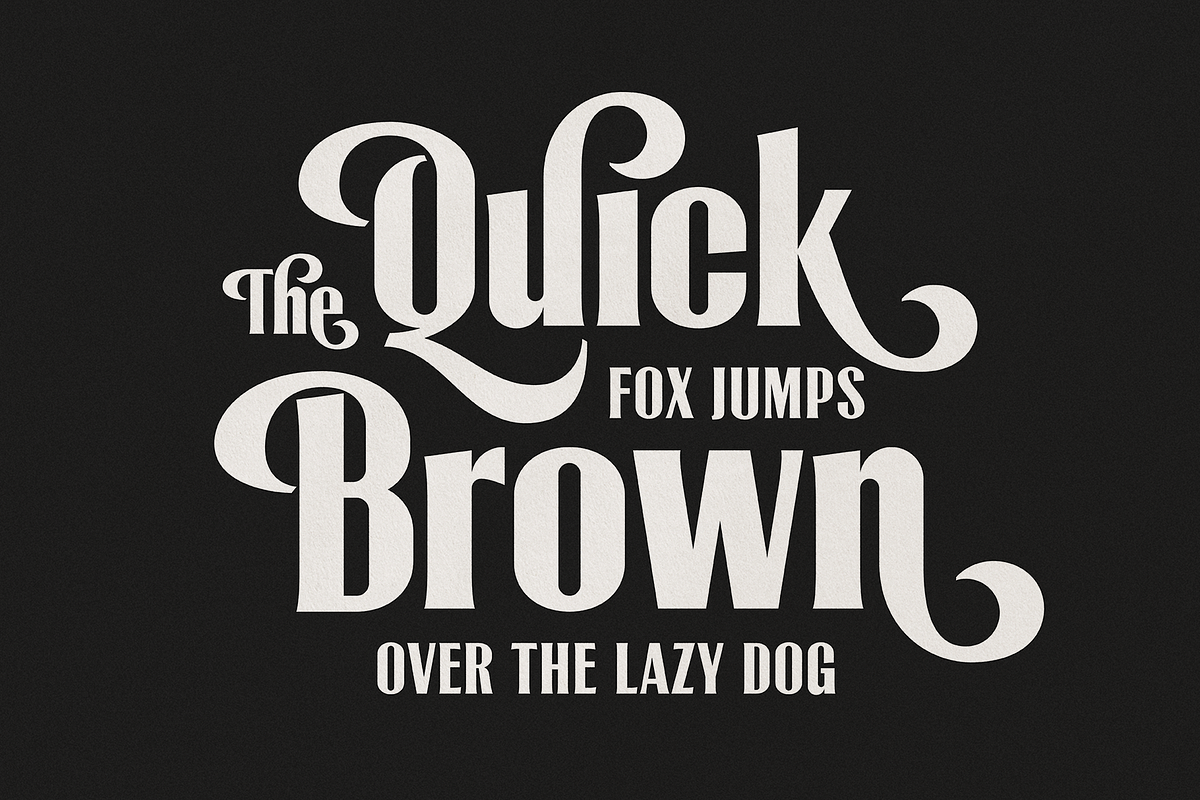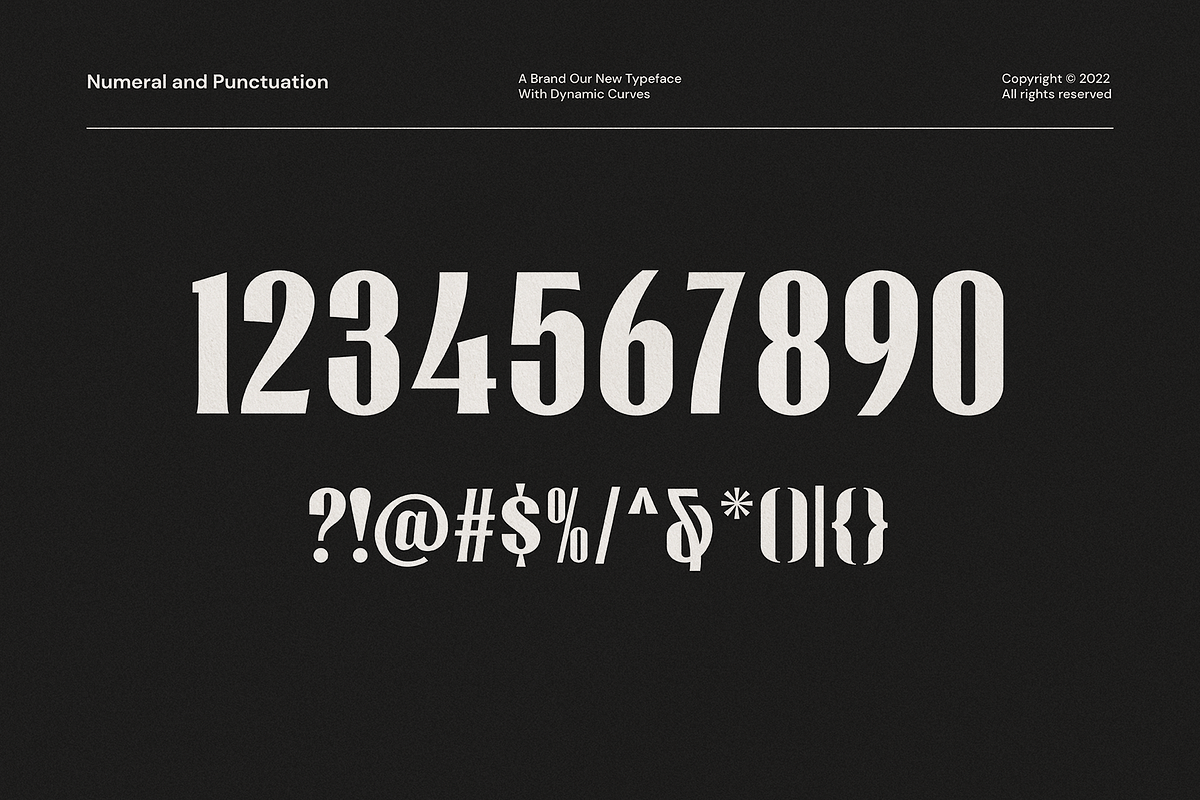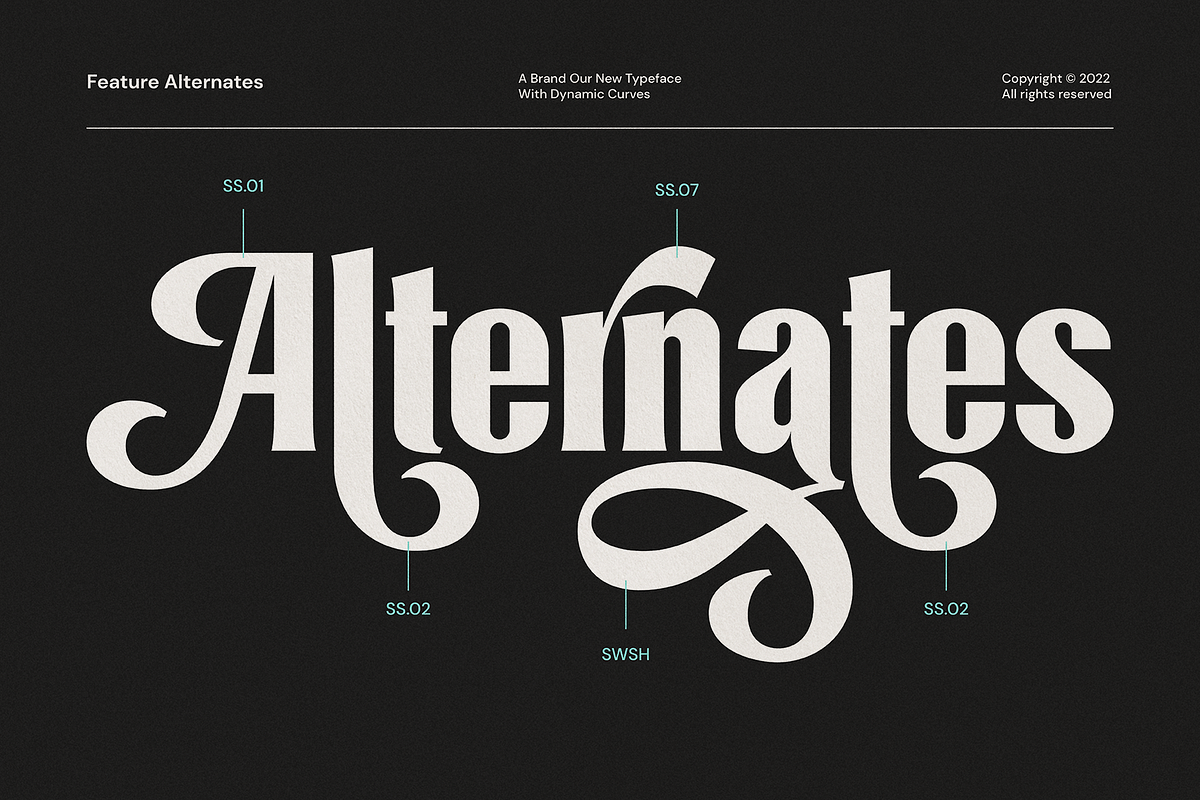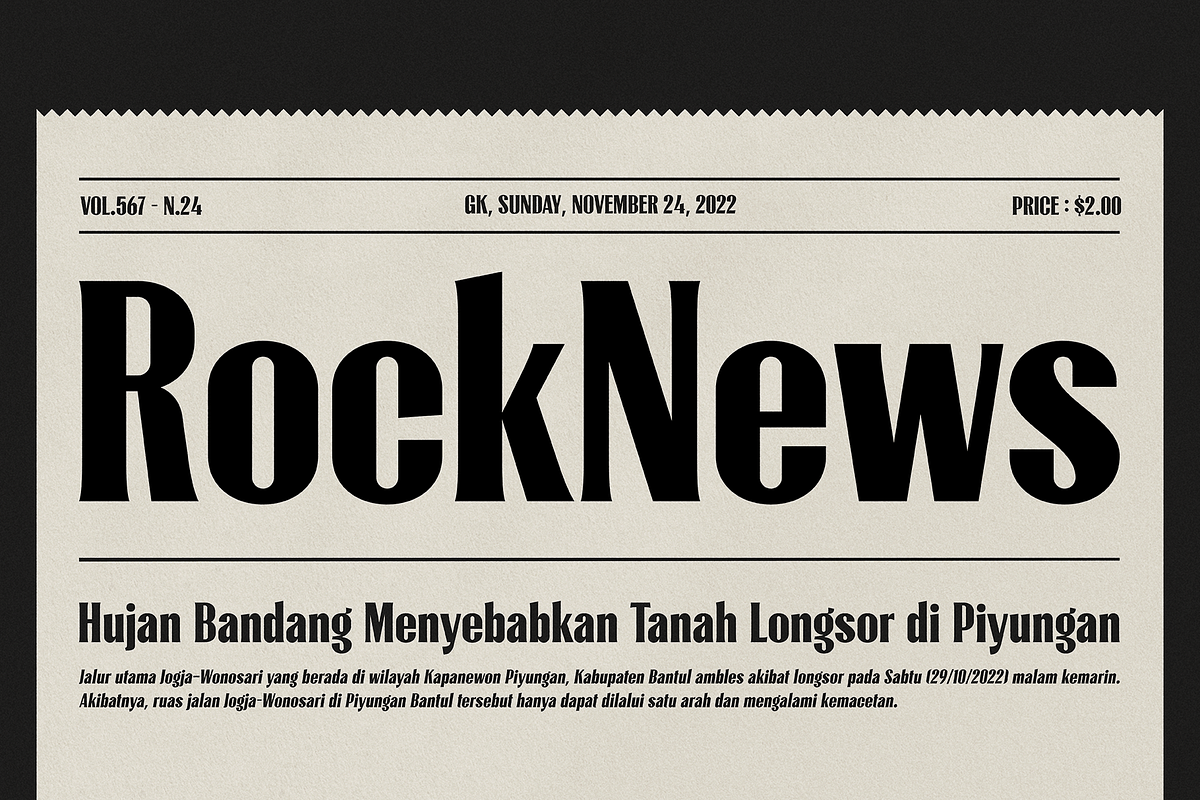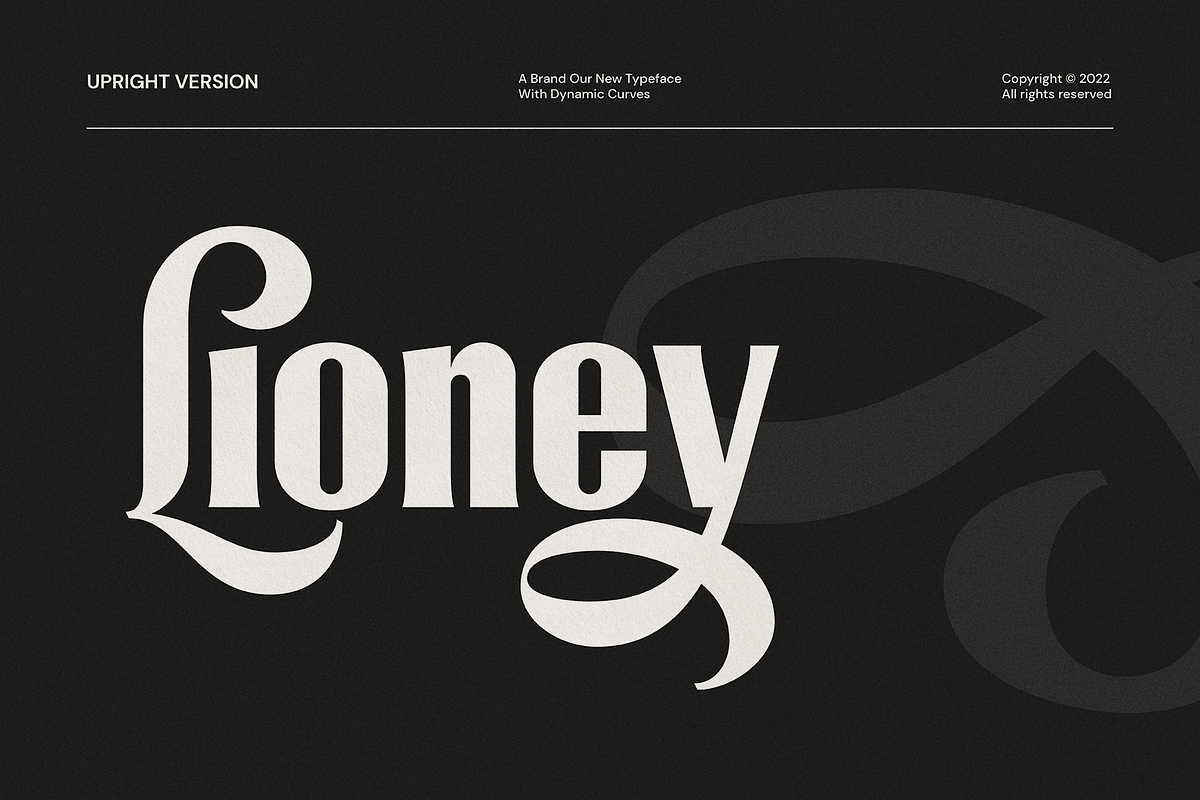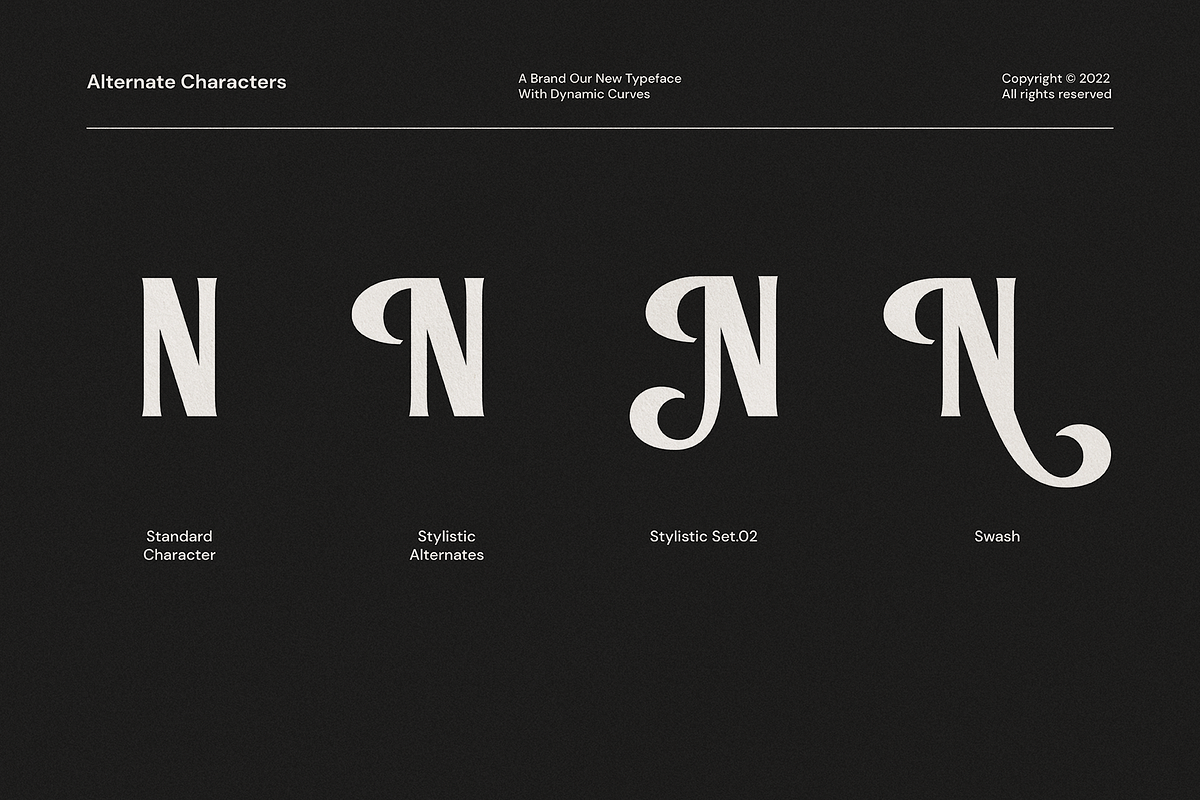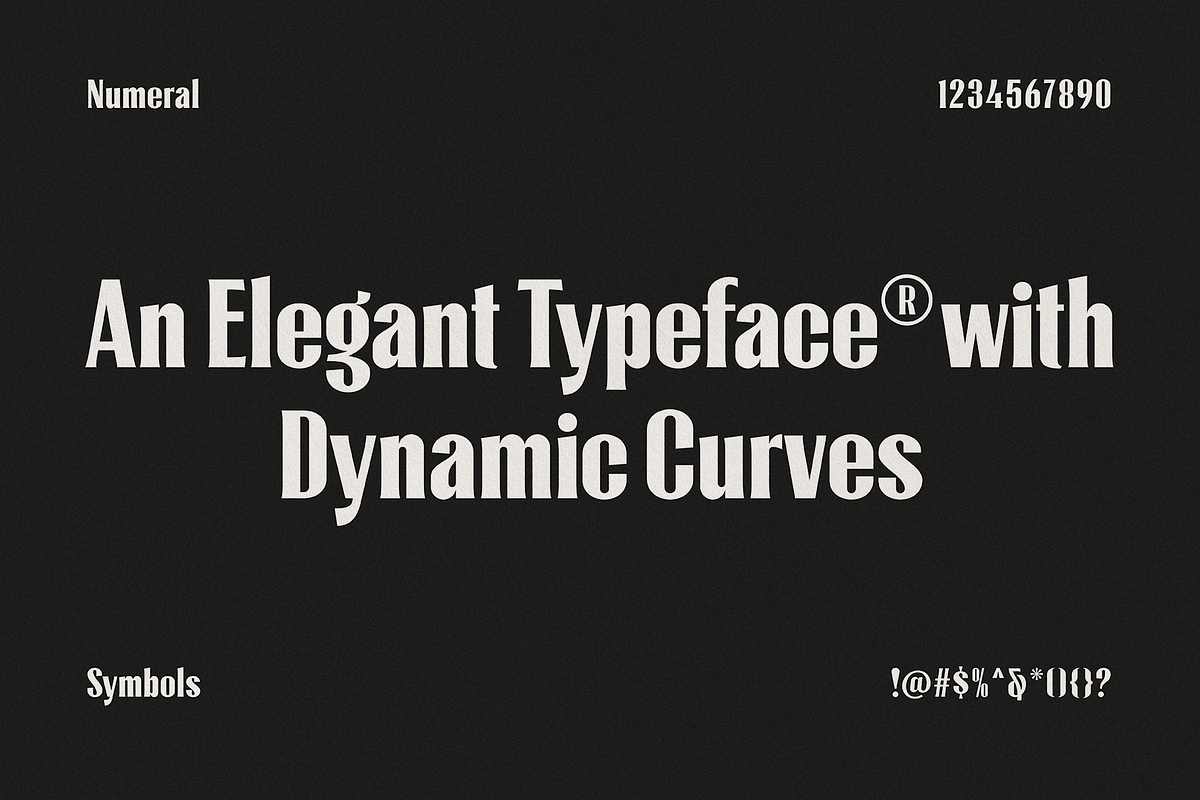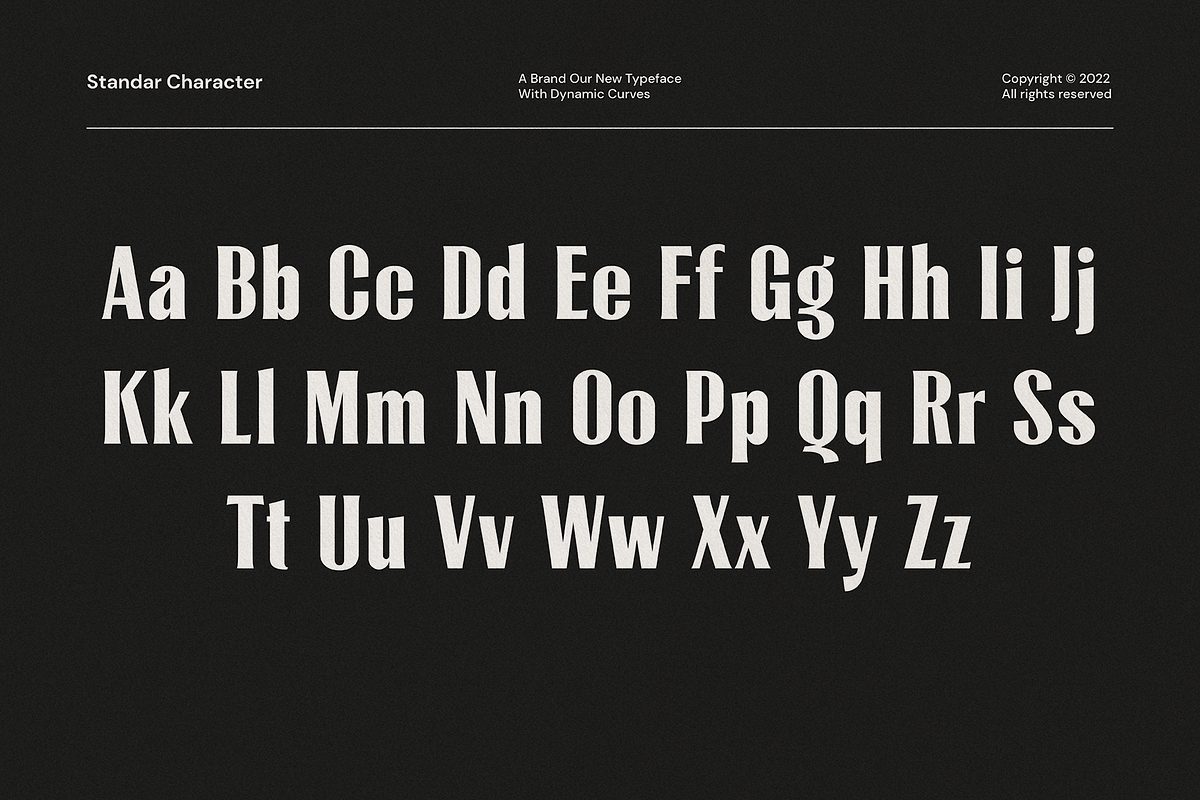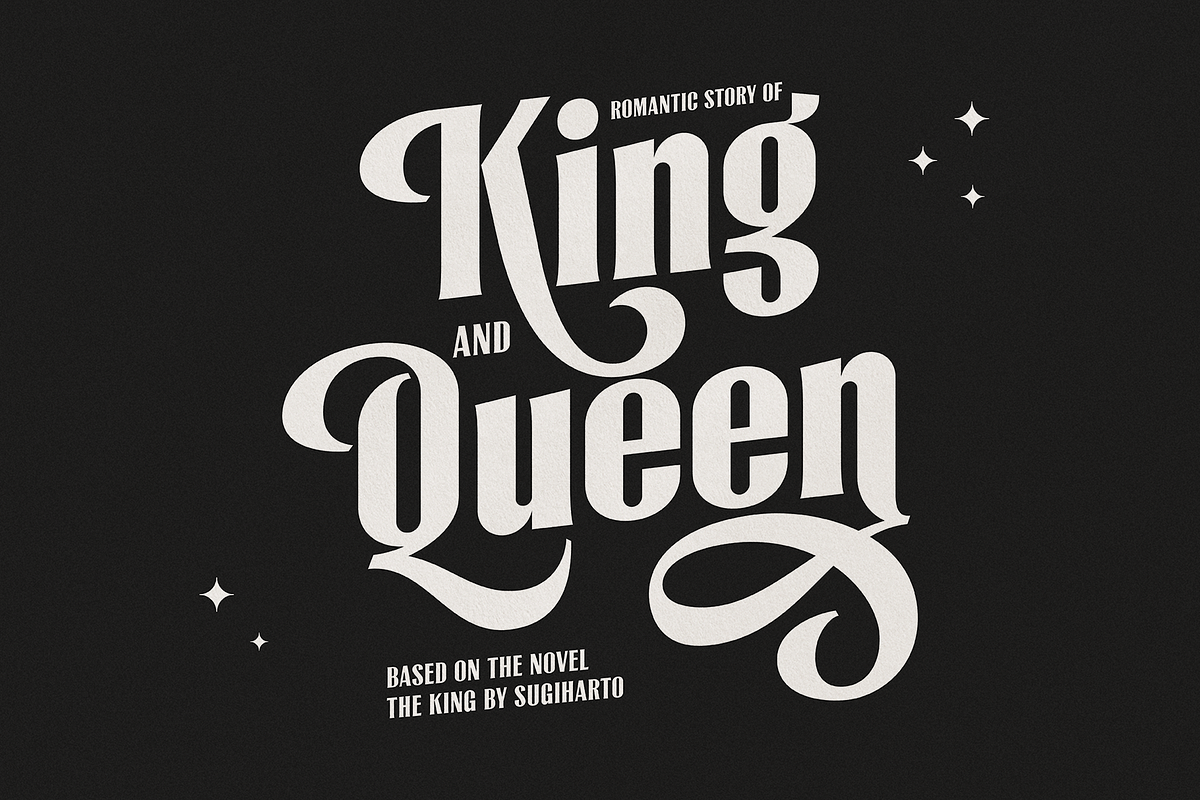
Lioney Upright
Lioney Upright is a display typeface with dynamic curve ,very suitable as to make a design choice for Headline, Movie Title, packaging, branding and more other creative project. Over 350 glyphs Lioney's also has alternative characters such as Stylistic Alternates, Stylistic Set, and Swash variant.